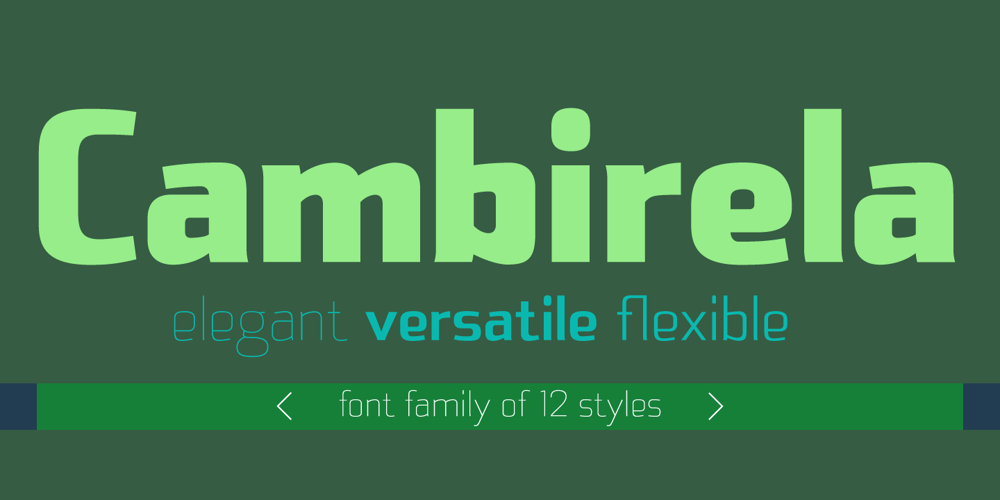
Cambirela Font Family was designed by Jefferson Cortinove and published by Sea Types. Cambirela contains 12 styles and family package options. Inspired by Santa Catarina mountains, the shapes of the characters refers to the winding contour of the mountain Cambirela.